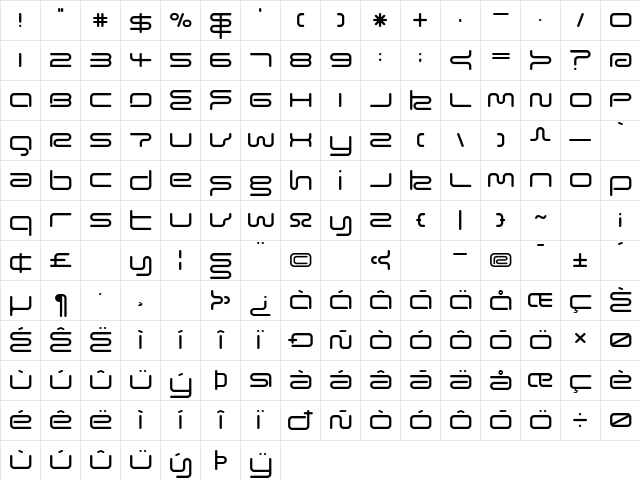
Euphoricregular Regular
Design Context for Euphoricregular Typeface
Euphoricregular is a composed and adaptable typeface that performs quietly and consistently across a wide range of design contexts.